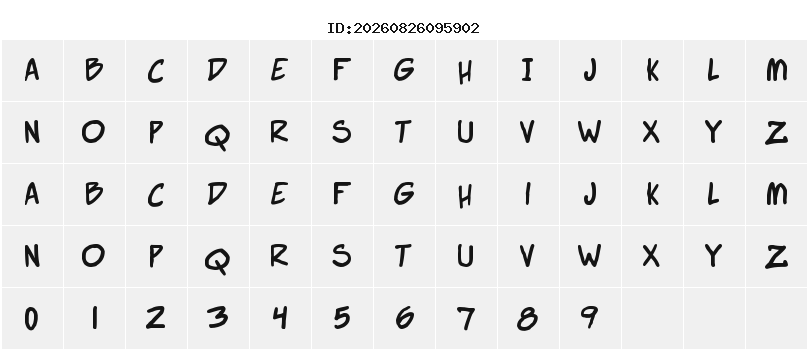
Webcomic Bros.ttf
• Font Name: Webcomic Bros
• Designer: Andeh Pinkard
About Webcomic Bros.ttf
Webcomic Bros.ttf is a modern, elegant sans-serif font designed for ultimate readability and visual harmony. Perfect for branding, headlines, web design, and print materials.